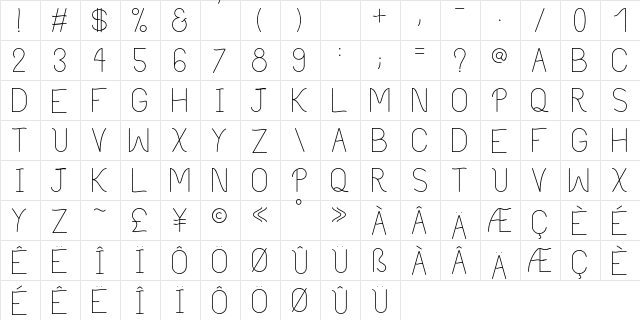
Philippine Light
| Designer | Valentin FRANCOIS |
Design Context for Philippine Typeface
Philippine is a composed and adaptable typeface that performs quietly and consistently across a wide range of design contexts. Its slender proportions lend an understated elegance to any composition.